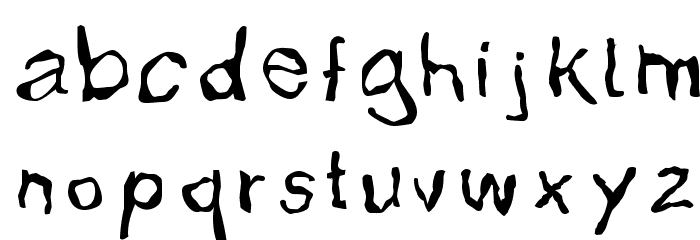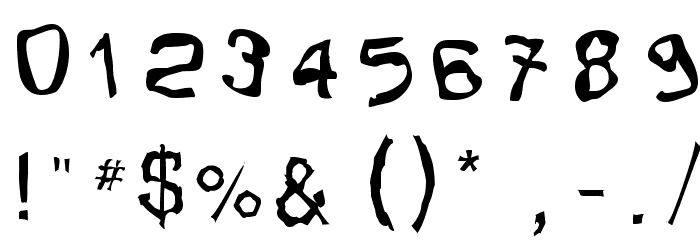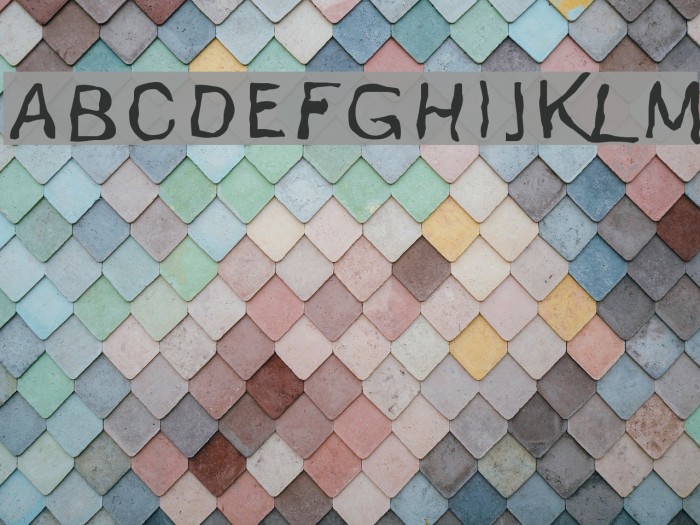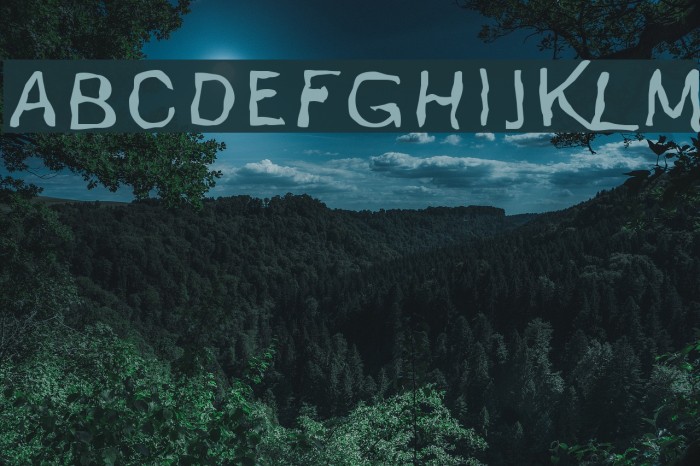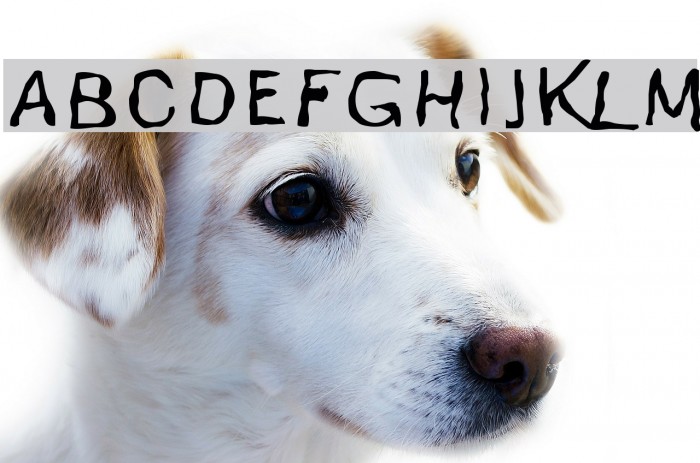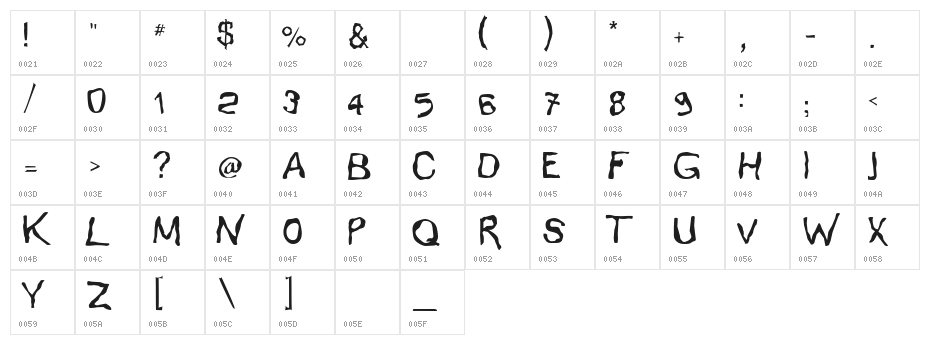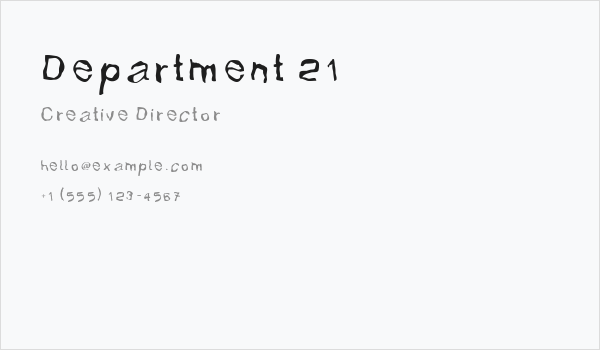
Department 21 Font
This font exhibits a playful and artistic style, characterized by its uneven and hand-drawn appearance. The letters have a casual, organic feel, with varying stroke thicknesses that give it a dynamic and lively look. The uppercase and lowercase letters maintain a consistent style, with a slight slant and irregular edges that add to its charm. The numbers and special characters follow the same aesthetic, making the font cohesive and versatile. Its unique style makes it suitable for creative projects that require a personal touch.
A playful, hand-drawn font with an artistic and organic style.
- Proposed Projects: Ideal for children's books, creative posters, artistic branding, and casual invitations.